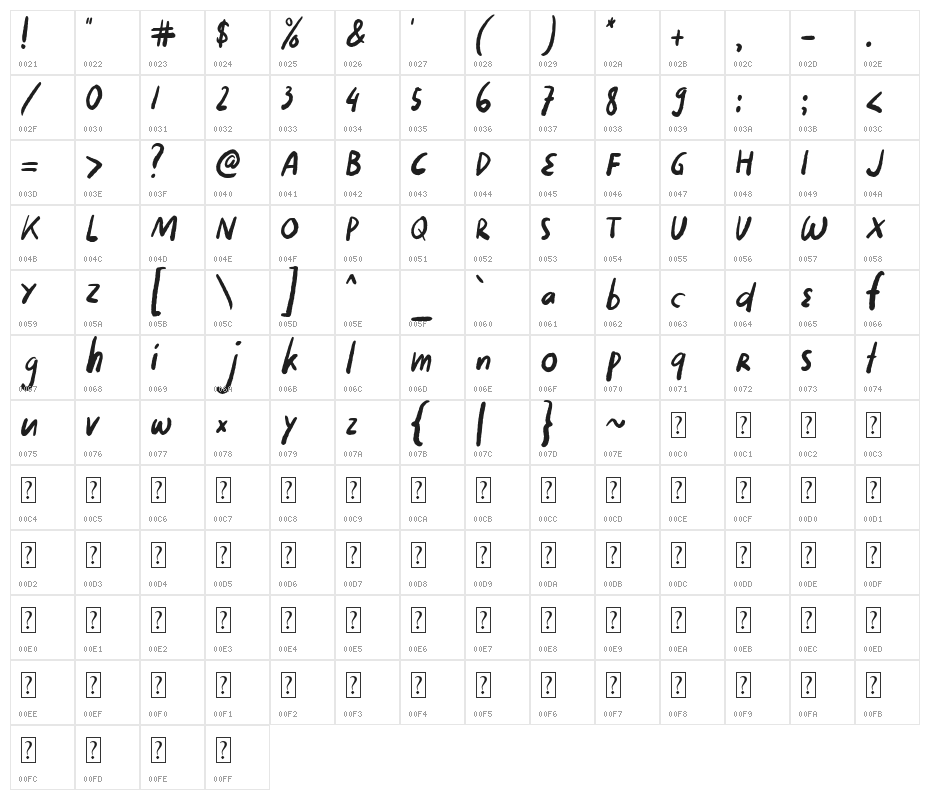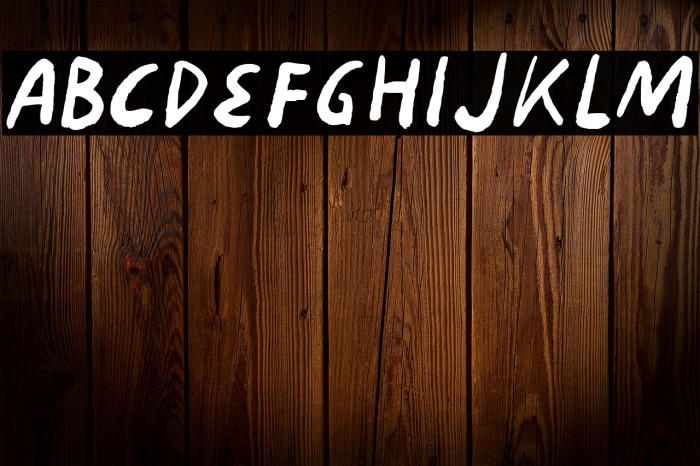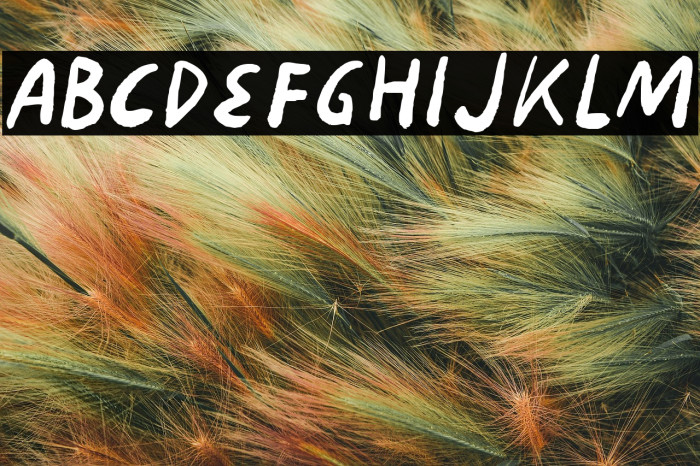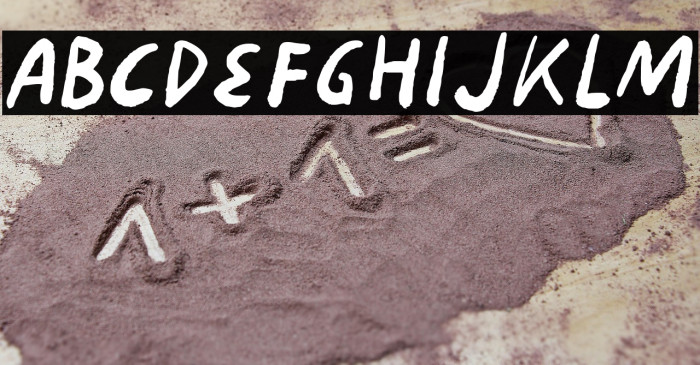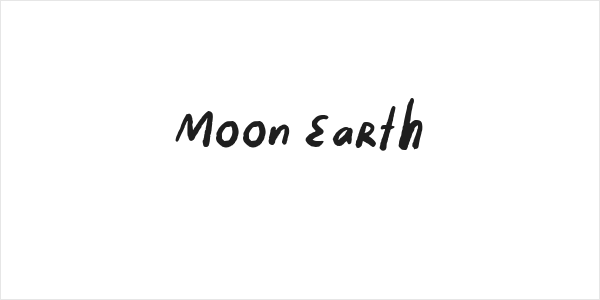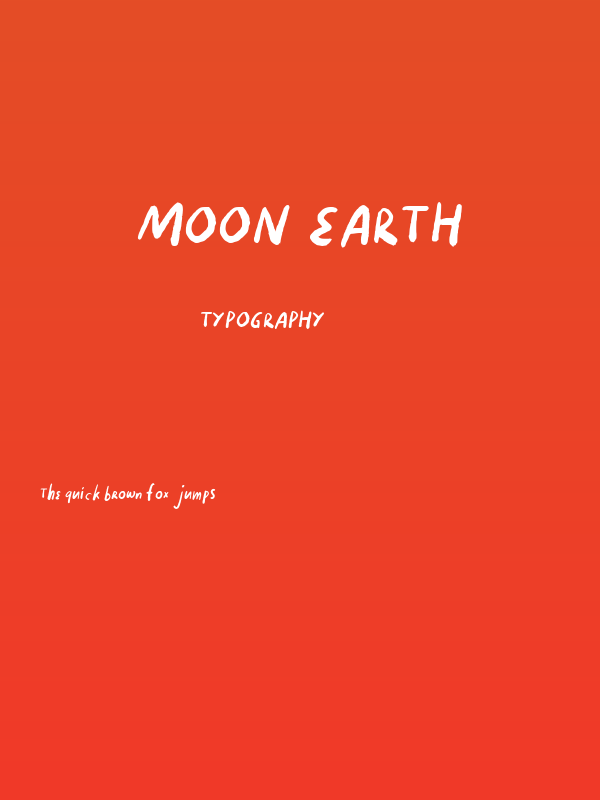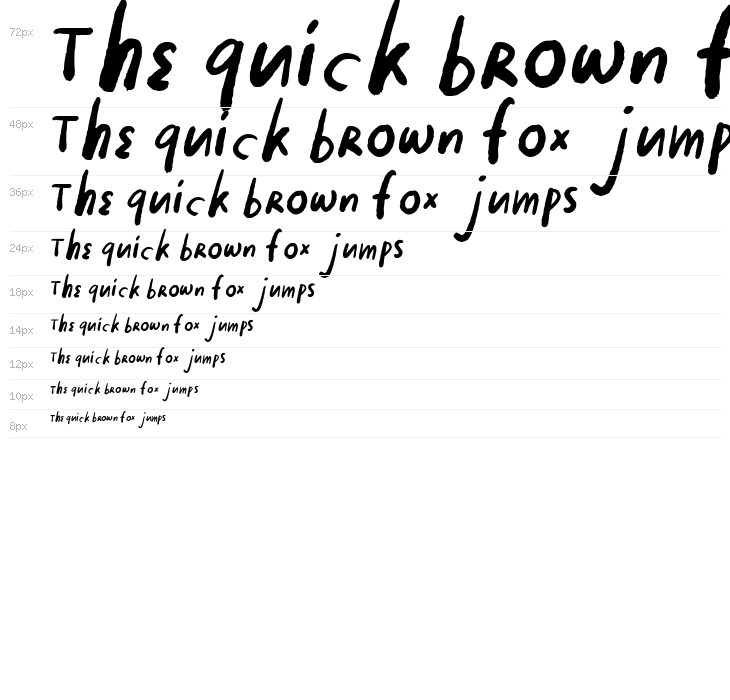
Moon Earth Font
Moon Earth Description
This font exudes a casual and playful handwritten style, characterized by its fluid and slightly irregular strokes. The letters have a natural, organic feel, reminiscent of a quick yet deliberate penmanship. The uppercase and lowercase letters maintain a consistent style, with a slight slant that adds to the dynamic appearance. The numbers and special characters follow the same aesthetic, ensuring a cohesive look across all elements. This font's charm lies in its imperfect, human touch, making it ideal for projects that require a personal and approachable vibe.
| Overall Style | Casual |
| Use Case | Headlines, Logos, Informal Text |
| Proposed Projects | Ideal for greeting cards, personal blogs, creative branding, and informal invitations. |